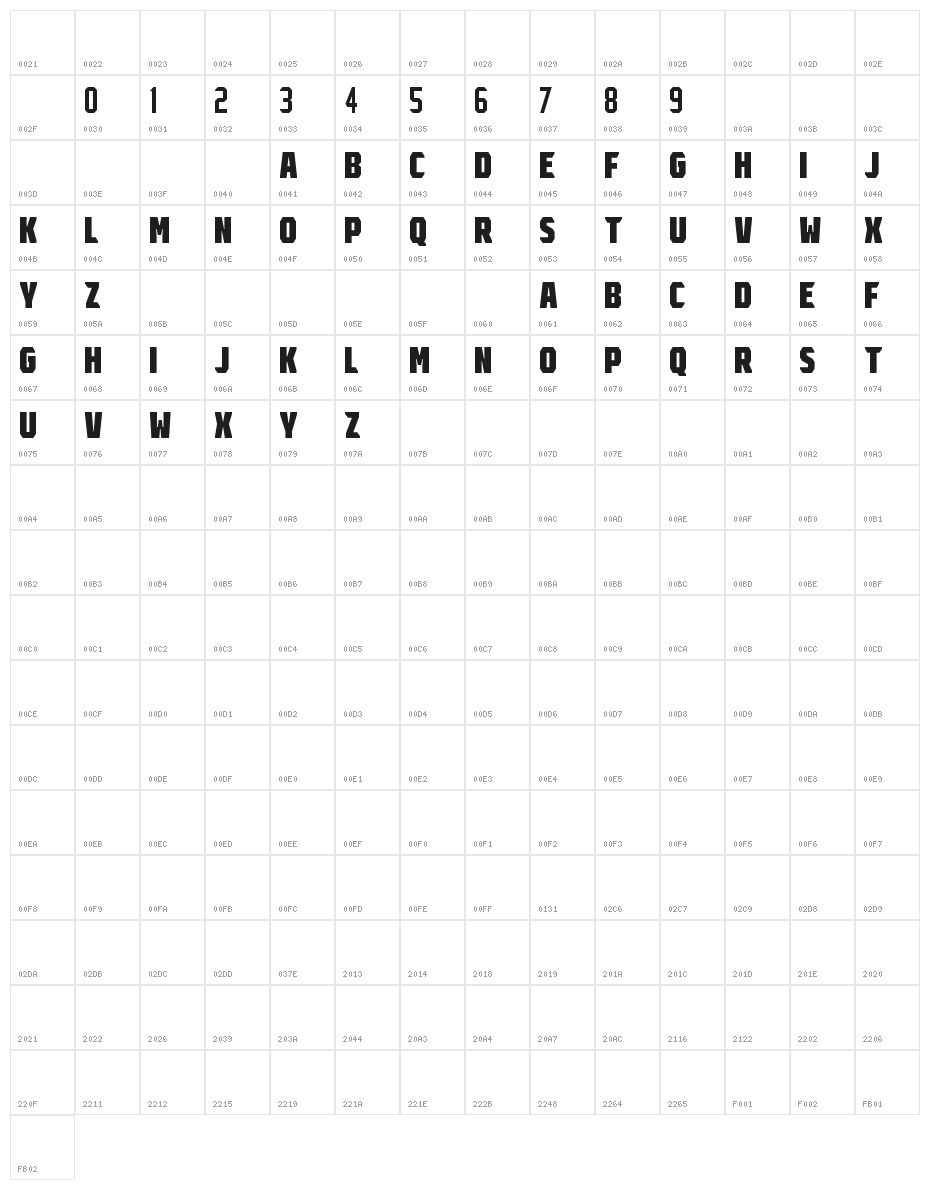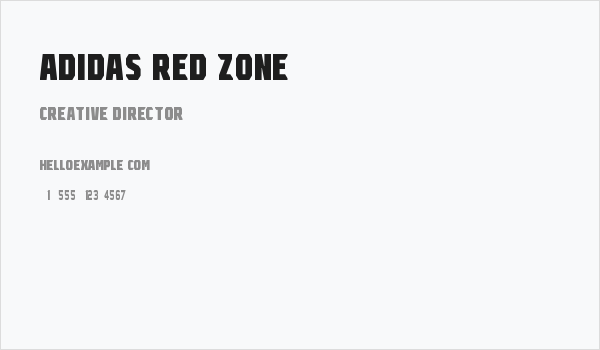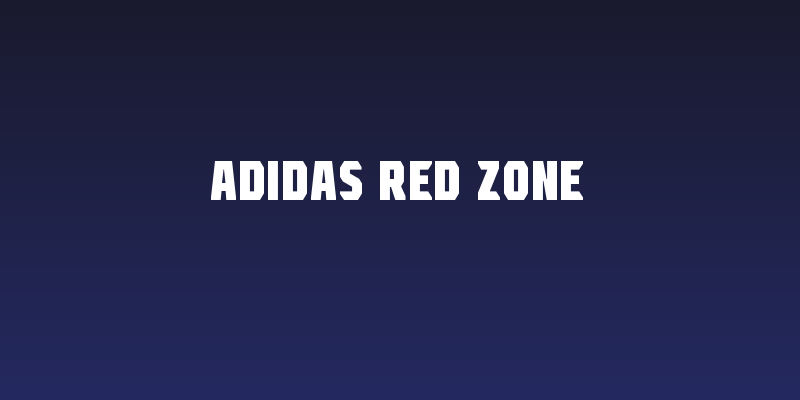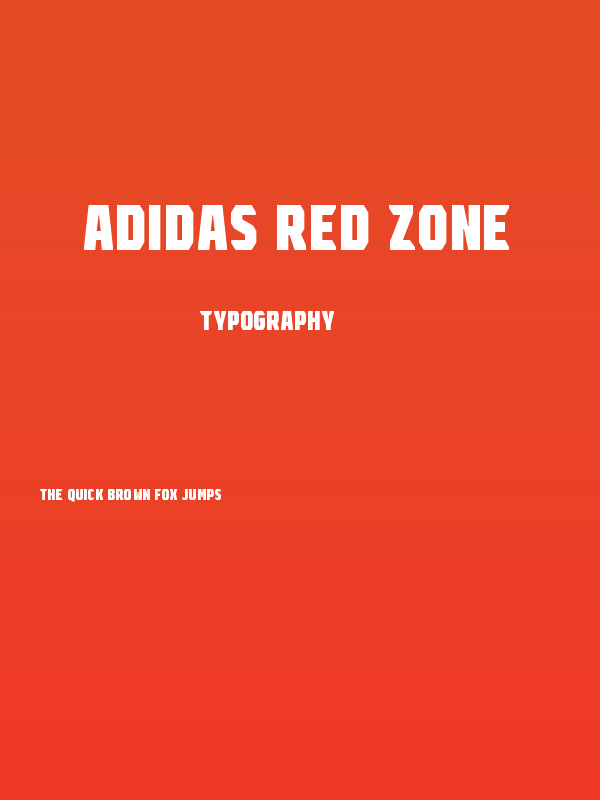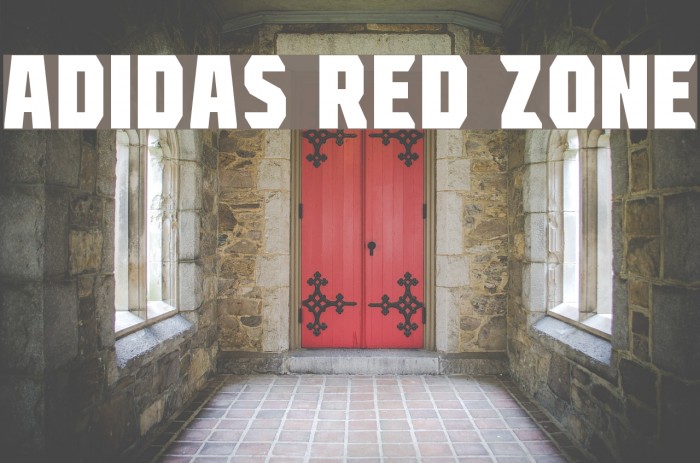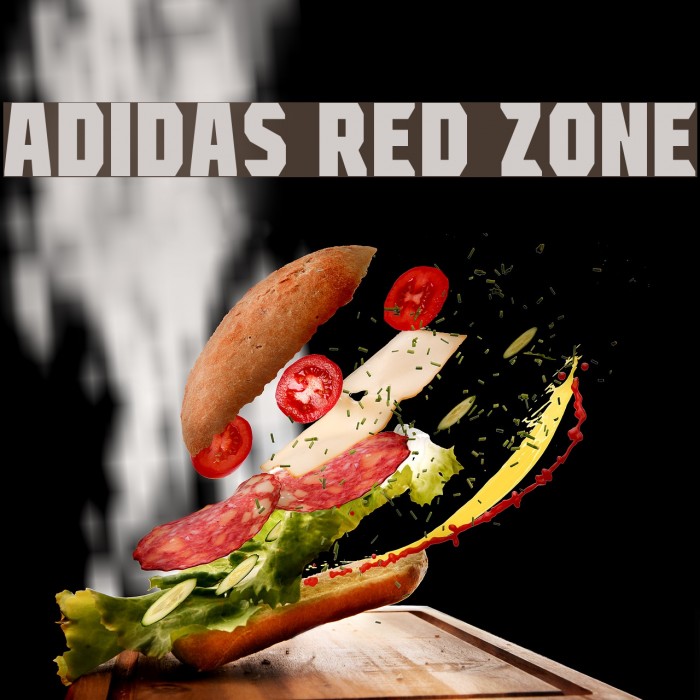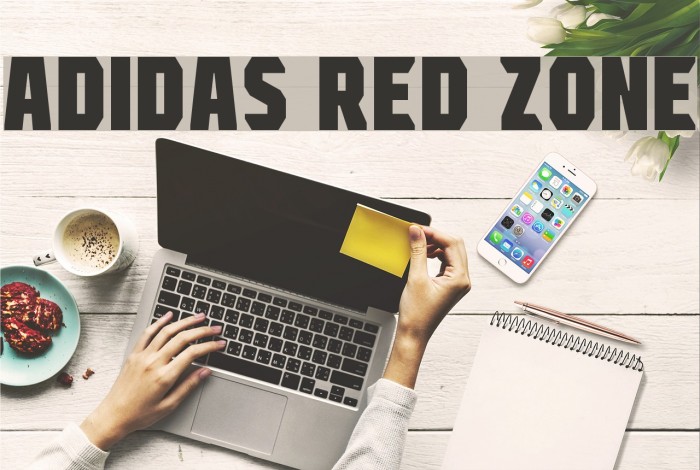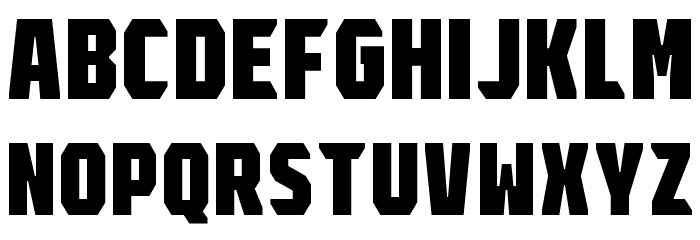
Adidas Red Zone Font
Adidas Red Zone Description
This font features a bold and impactful design with strong geometric shapes and sharp angles. The uppercase letters are uniform in height, creating a cohesive and structured appearance. The numbers follow the same bold style, ensuring consistency across all characters. The font's design is reminiscent of sports or athletic branding, with a modern and assertive look that commands attention. Its thick strokes and angular cuts give it a dynamic and energetic feel, making it suitable for projects that require a strong visual presence.
| Use Case | Logos, Headlines |
| Proposed Projects | Ideal for sports branding, team logos, event posters, and merchandise designs. |